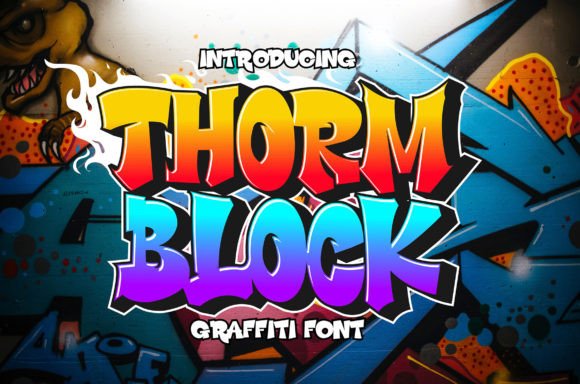
Introducing Thorm Block Font, the ultimate choice for those seeking the best font for stickers! Created by Cikareotype, this font is a true masterpiece that will instantly captivate your imagination and elevate your design projects to new heights. With its unique graffiti-style and bold, fatty letters, Thorm Block is more than just a font - it's a work of art that demands attention.
What sets Thorm Block apart from other fonts is its versatility. Whether you're working on branding, headings, invitations, or logotypes, this font has got you covered. Its eye-catching and cool style adds a touch of urban vibes to any project, making it perfect for streetwear designs, wall art illustrations, apparel, labels, and so much more.
But Thorm Block is not just about aesthetics. This font is designed to evoke emotions and create a lasting impact. Its bold and powerful presence will make your designs stand out from the crowd, leaving a lasting impression on anyone who lays eyes on it. Imagine the reaction of your audience when they see your sticker designs featuring this captivating font - it's bound to make them stop and take notice.
With Thorm Block, the possibilities are endless. Let your creativity run wild and explore the countless ways this font can enhance your designs. Its captivating style will breathe life into your projects, turning them into visual masterpieces that tell a story of their own.
Experience the power of Thorm Block Font and witness how it transforms your designs from ordinary to extraordinary. Don't settle for anything less than the best font for stickers - choose Thorm Block and let your creativity shine.